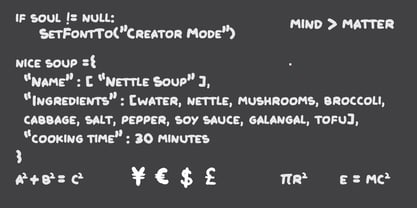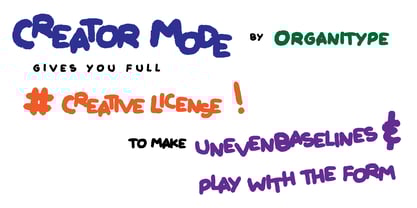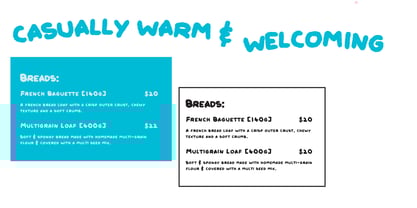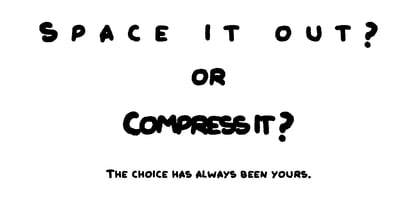
Creator Mode
by OrganiType
"Creator Mode" was designed to be a bold yet legible hand-written font, in order to add more authenticity and depth to digital creations. Inspired by the project notes of various creatives, the aim of the font is to capture the soul of an artist who is keeping their thoughts organized. It is crisp with organic texture to give it the authentic marker feel.
OrganiType is a foundry started by Jash Jhaveri, an artist and graphic designer from Mumbai, India that creates works across varying disciplines. Inspired to help make modern-design less mechanical, the foundry aims to create organic fonts that are both versatile and legible, while still retaining a strong sense of personality. All fonts are hand-created by him.